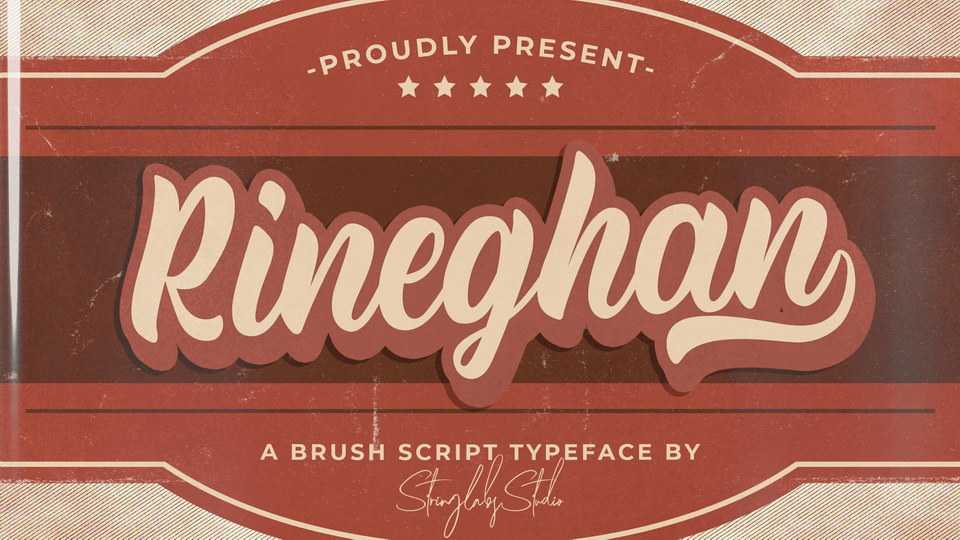
Download Rineghan font, a soft handwritten script typeface. Rineghan has curved, rounded look and an unique vintage style, that is perfect for branding.